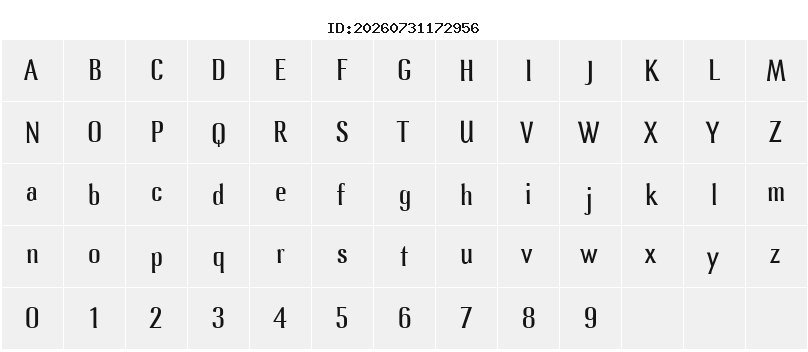
Lennox ITC Book Preview
About Lennox ITC Book.ttf
Lennox ITC Book.ttf is a modern, elegant sans-serif font designed for ultimate readability and visual harmony. Perfect for branding, headlines, web design, and print materials.